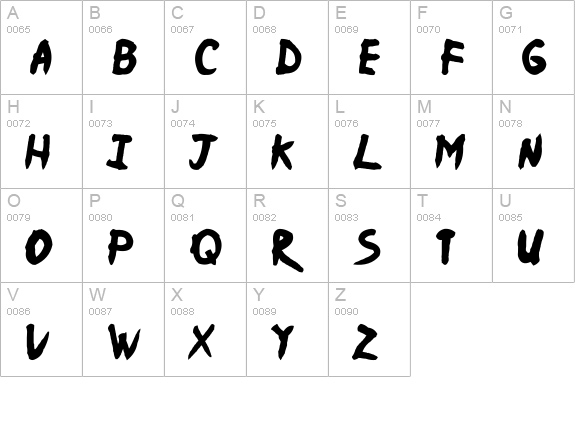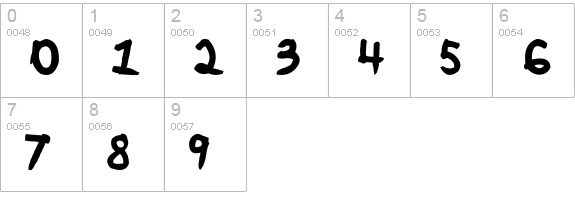
Ninja Naruto Font Details
Ninja Naruto is a free for personal use font in the Script > Brush category. It has been downloaded 316 times and is available for Windows, Mac and Linux.
Introducing Ninja Naruto font, a captivating and dynamic typeface that embodies the spirit of the legendary ninja warrior. With its sharp edges and intricate details, this font exudes power, agility, and stealth, just like the skilled fighters it takes inspiration from. Ninja Naruto font is perfect for adding a touch of adventure and excitement to your designs. Whether you're creating posters, logos, game titles, or any other creative project, this font will instantly captivate your audience and transport them into the world of ninjas and samurais. What sets Ninja Naruto font apart is not just its stunning design, but also the fact that it is available for free. Yes, you read that right! This incredible font can be freely downloaded at FontsMarket.com, a leading platform for high-quality fonts. Now you can embrace the power and allure of the ninja without spending a dime. Designed with versatility in mind, Ninja Naruto font offers a wide range of characters, including uppercase and lowercase letters, numbers, punctuation marks, and special symbols. Its bold and distinct style ensures that your message will be delivered with impact and precision. Whether you're a professional designer or a creative enthusiast, Ninja Naruto font is a must-have in your font collection. Unleash your creativity and bring your designs to life with this remarkable font. Download Ninja Naruto font for free at FontsMarket.com and embark on a thrilling typographic adventure like never before.